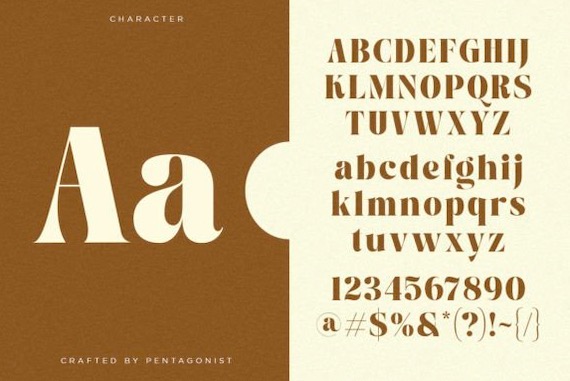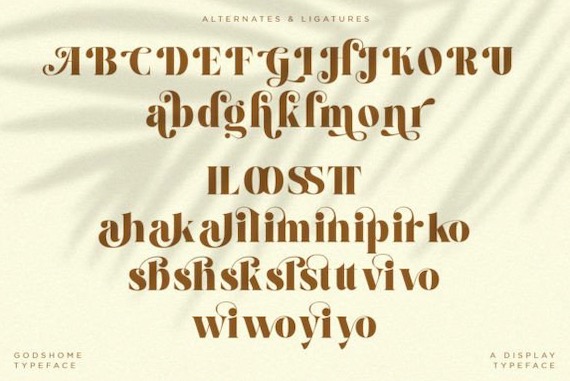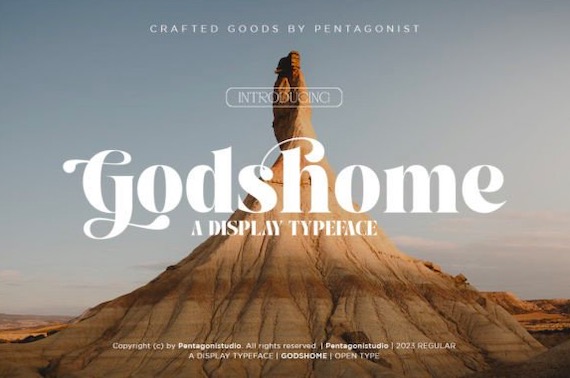
Introducing a great new display serif font from Pentagonistudio, Godshome Font. It’s a stylish and exquisite display font that adds a touch of sophistication to any project. With its sleek and elegant design, this font is perfect for high-end branding, editorial design, and fashion projects. Its unique and refined look conveys a sense of luxury and exclusivity, making it a standout choice for those seeking a premium and polished design. This font is PUA encoded which means you can access all glyphs and swashes effortlessly!
Godshome Display Serif Font